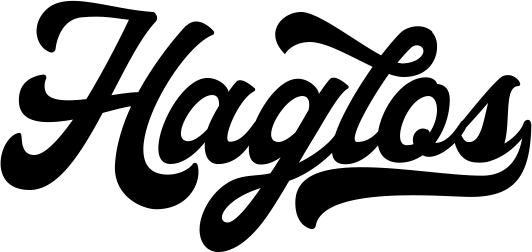
Haglos Font
Haglos font is one of the retro and script designs that many old-fashioned designers must be familiar with. We suggest this groovy font if you want to create a convenient design in the retro and ’70s, such as flyers, posters, and T-shirt designs. Our suggestion is simply the best available option, so put this vintage and old-school font in the download list right now.